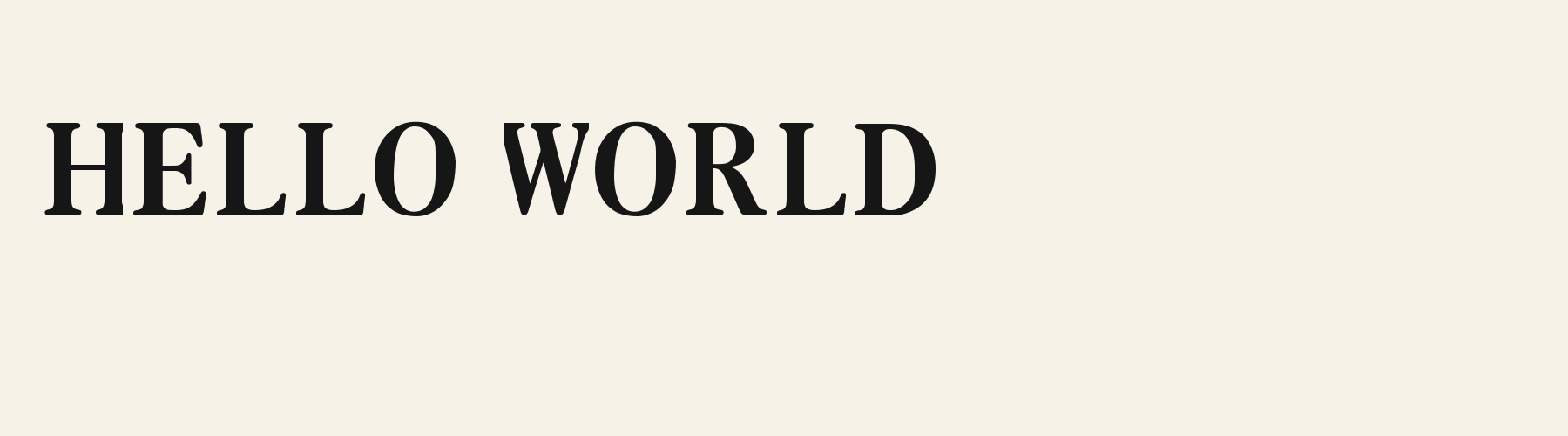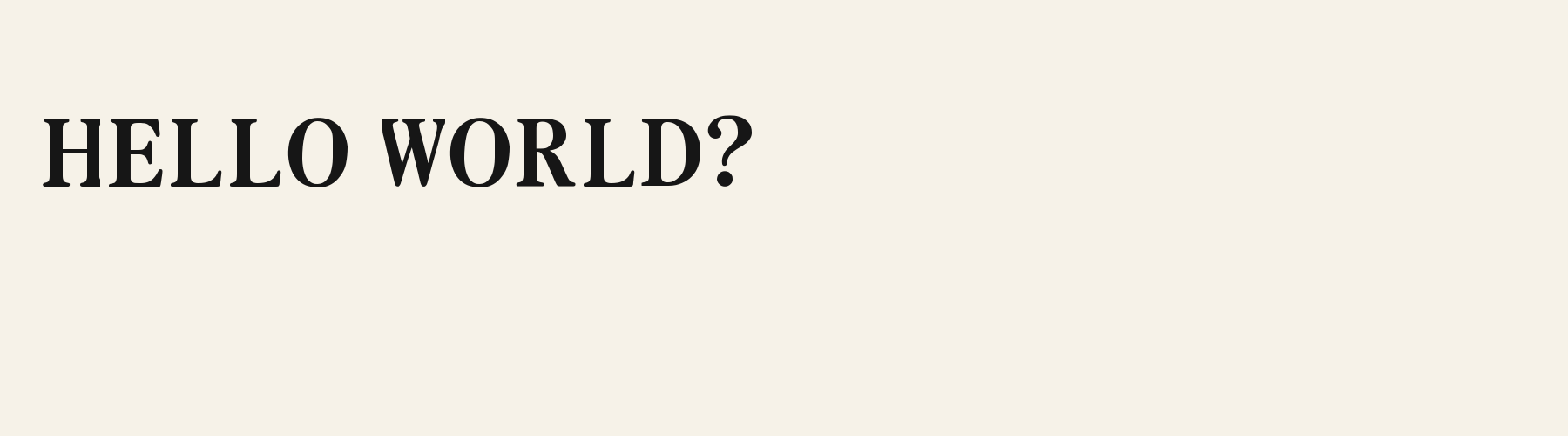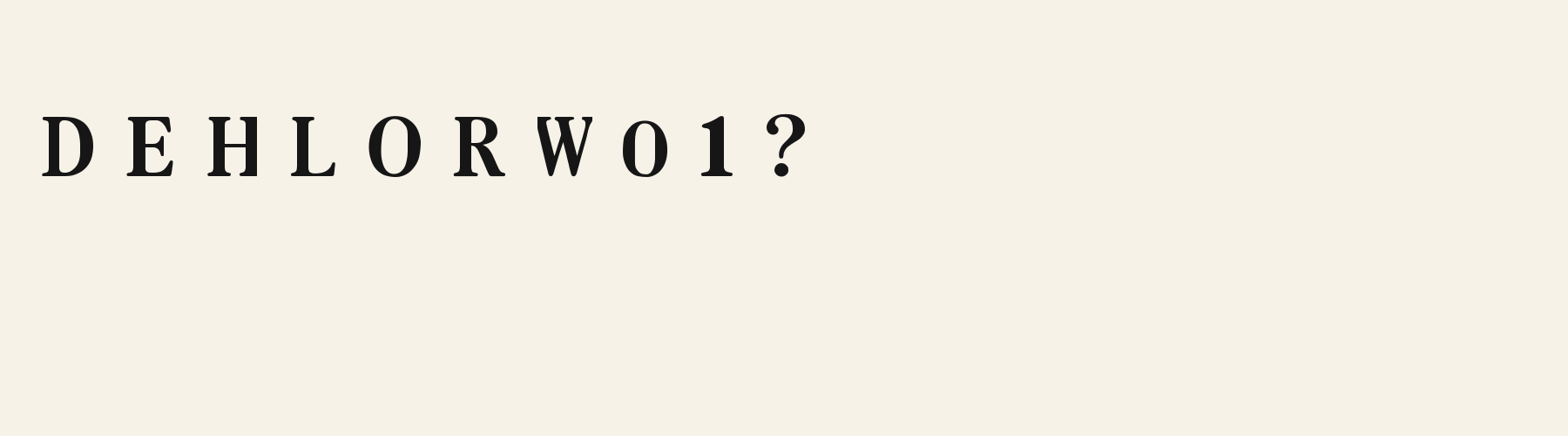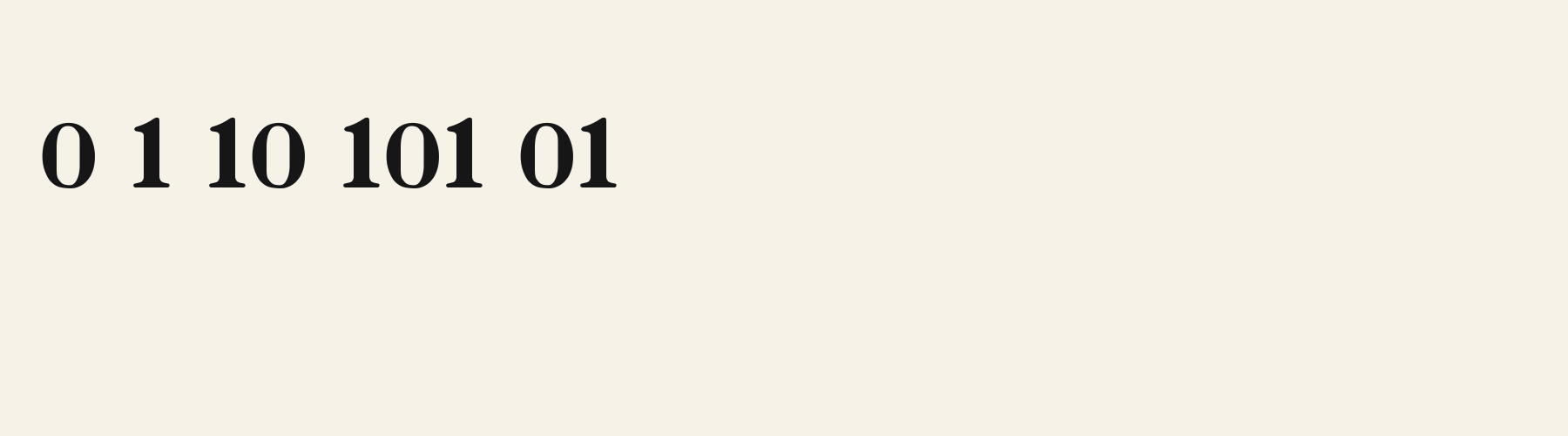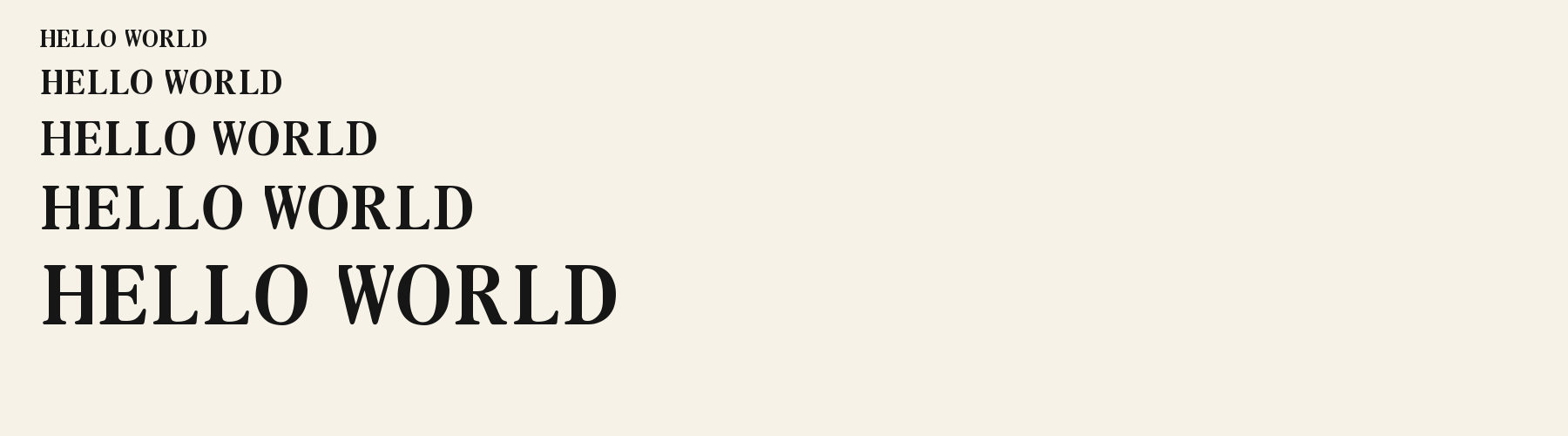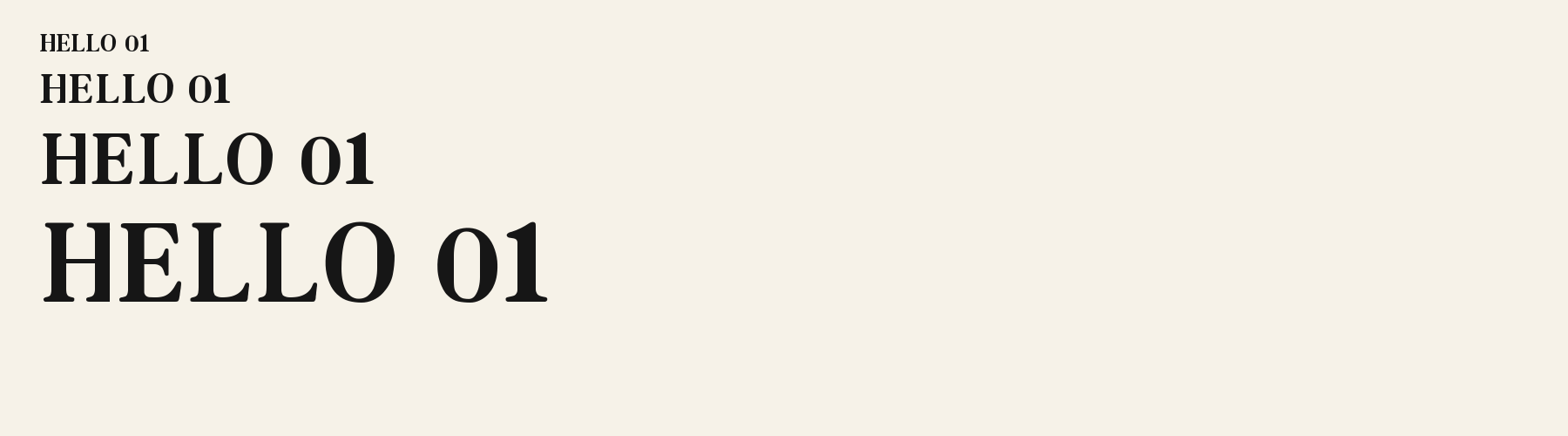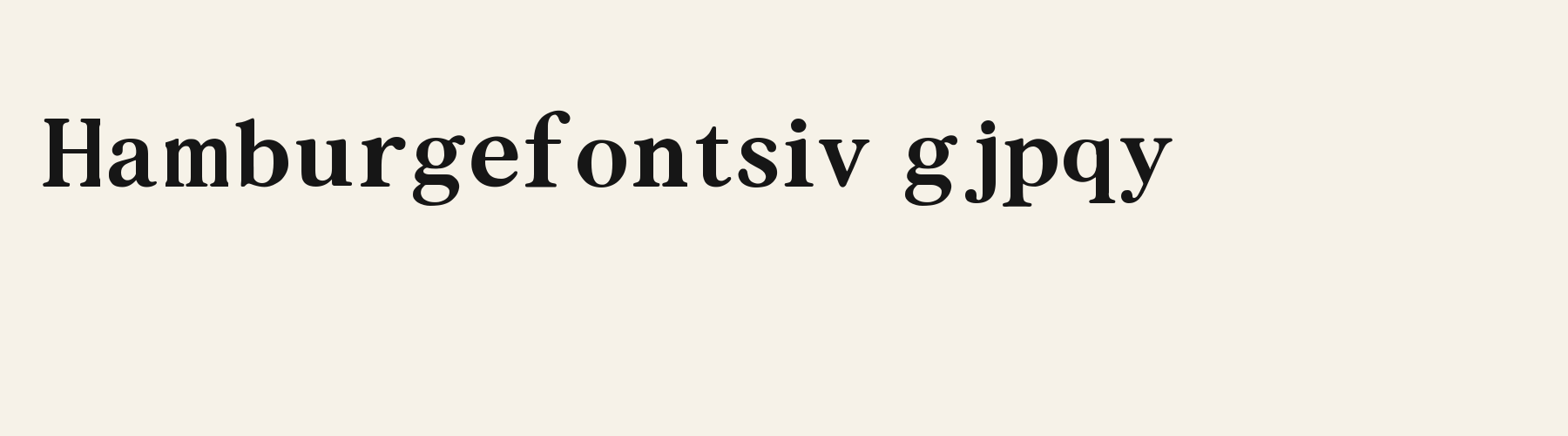
Pretty Pearl Serif is an A polished serif for elegant but readable names and headings. Moderate contrast with subtly rounded terminals; avoid fragile hairlines. Best for invitations, boutique labels, and name graphics.